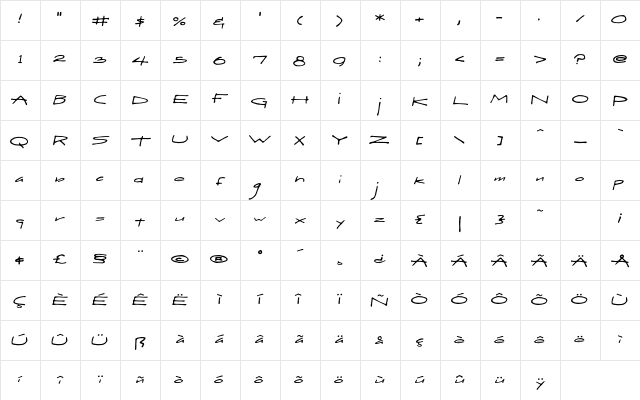
DraftHand Regular Free Font
DraftHand Regular
Design Context for DraftHand
DraftHand flows with the natural rhythm of handwritten lettering, making it ideal for designs that call for warmth and personal expression.
Font Pairing: Combine DraftHand with a simple geometric sans for maximum contrast - the tension between flowing curves and clean structure is a classic typographic pairing.
Pro Tip: Use DraftHand for short runs of text - names, titles, or taglines. Extended body copy in script faces tires the eye quickly.